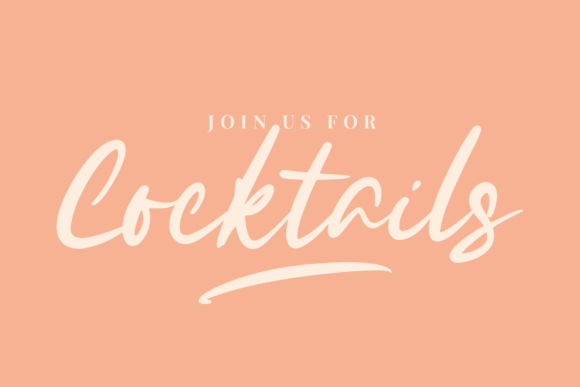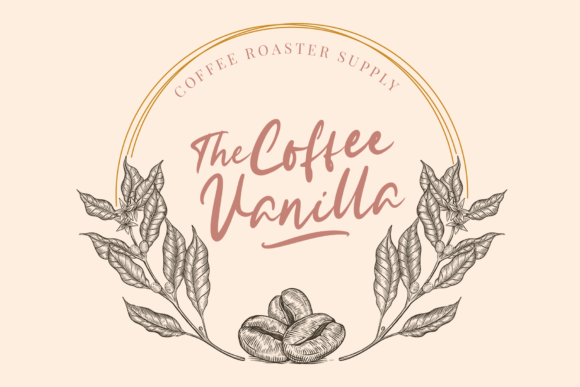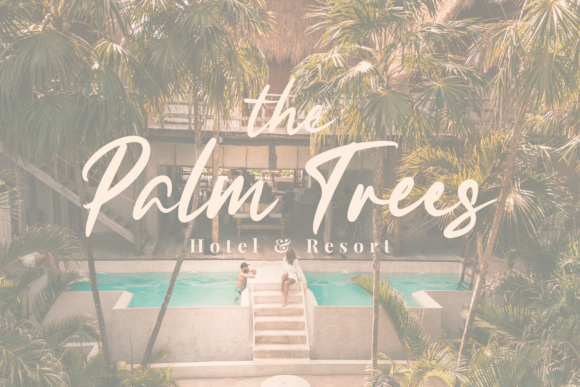
About Efforita Font
Efforita is a delicate, elegant, and flowing handwritten font. It has beautiful and well-balanced characters and as a result, it matches a wide pool of designs. Add it to your most creative ideas and notice how it makes them come alive!